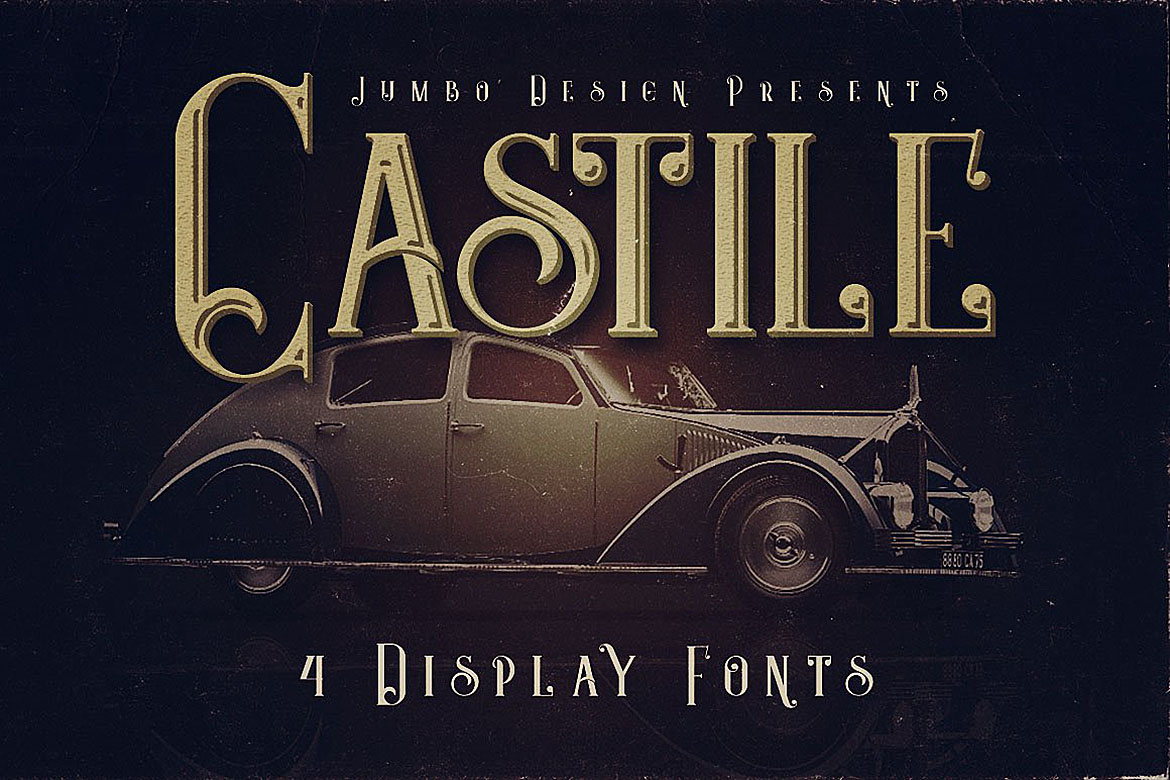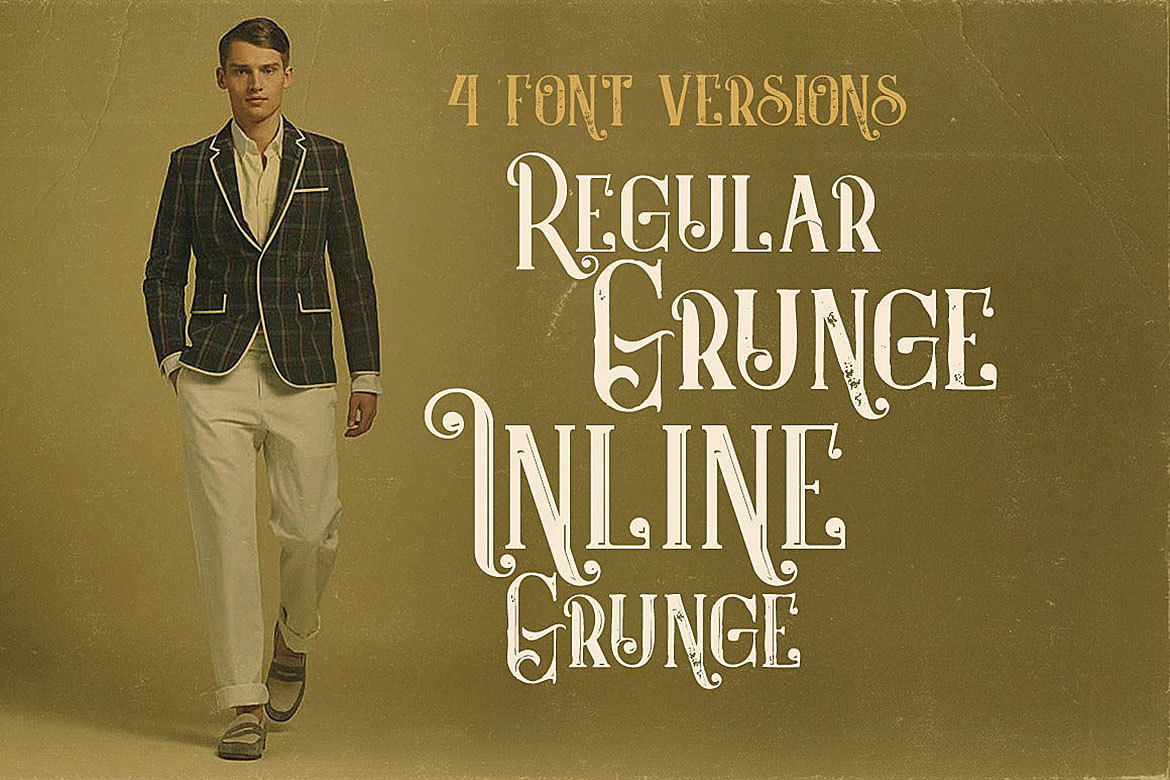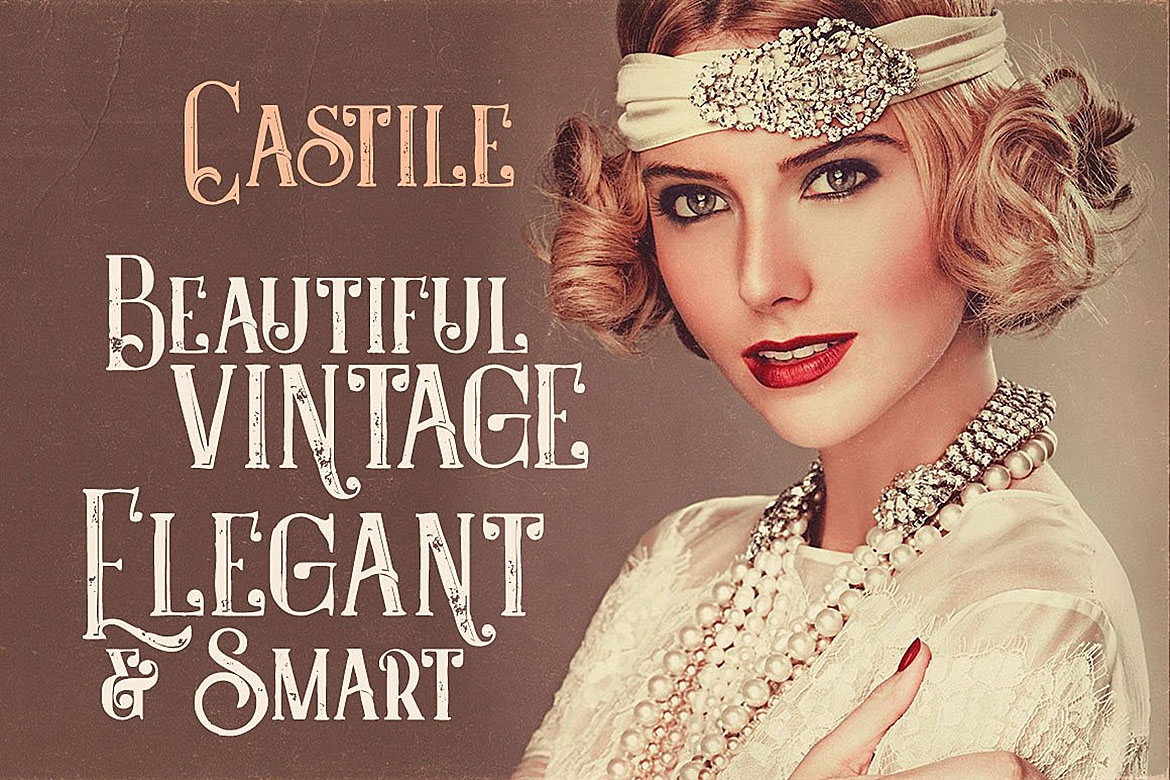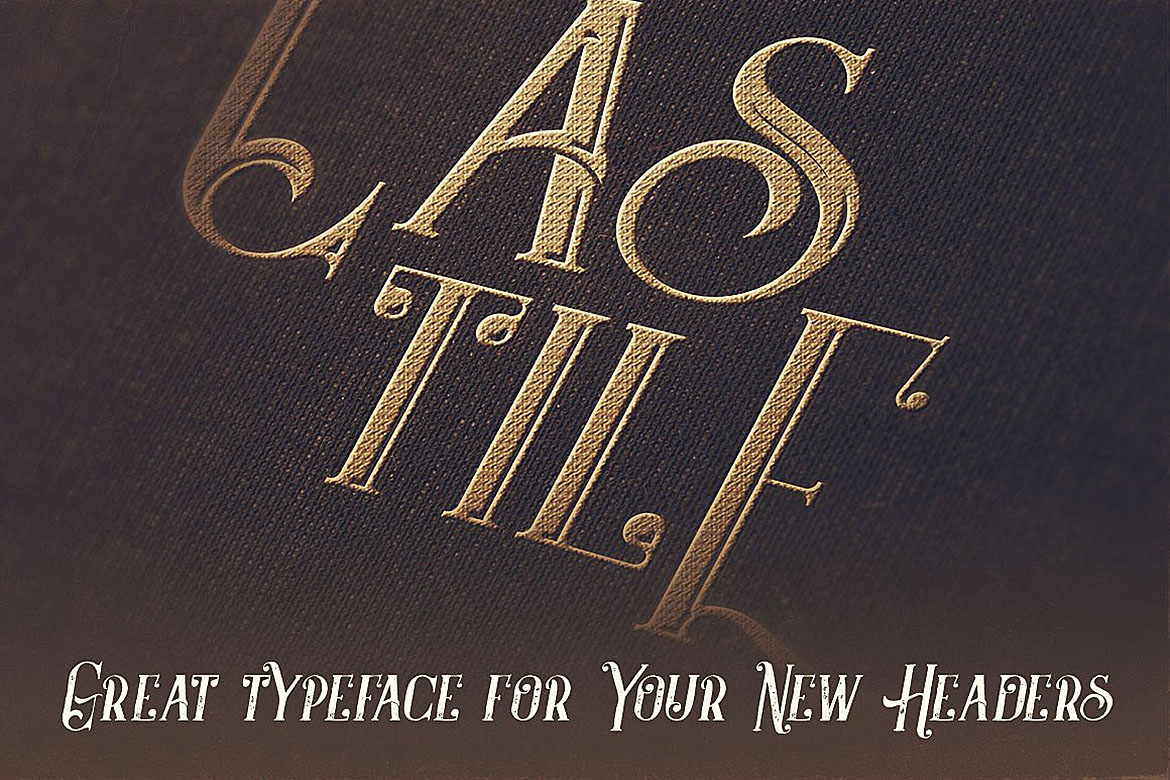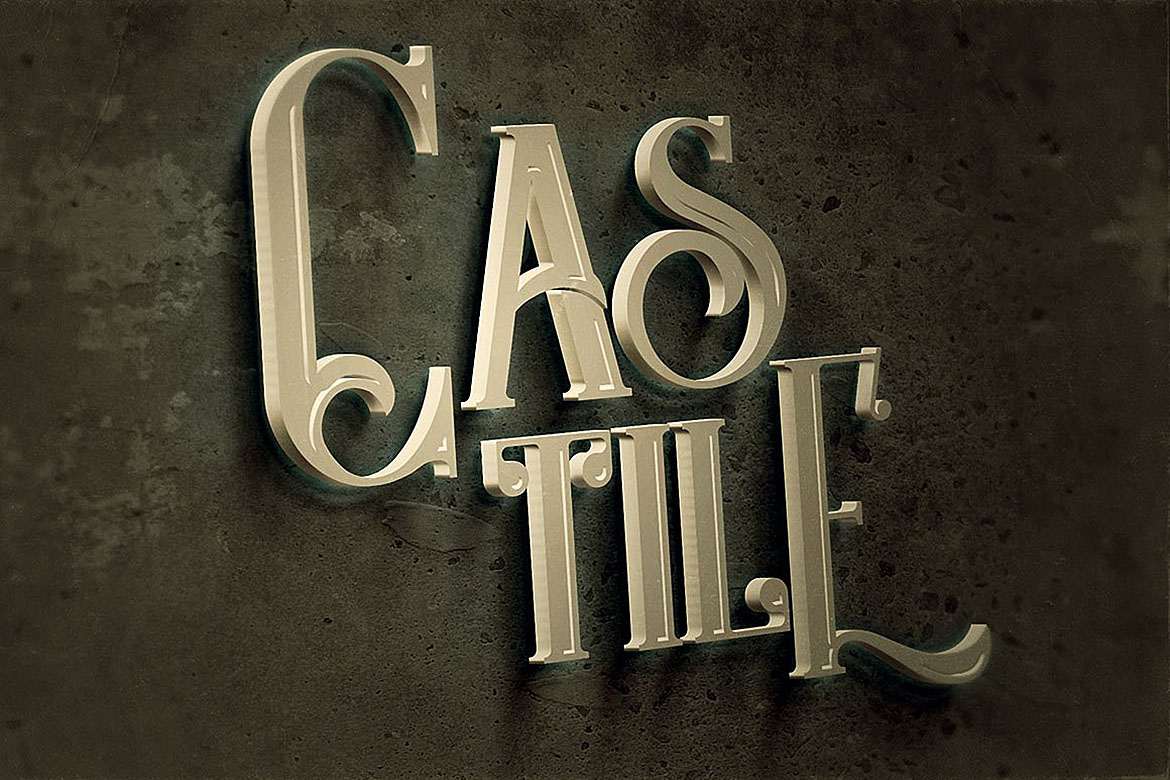
Castile is a gorgeous display font, perfectly crafted to give an art deco vibe to your designs. This display font is a stunner that comes in different styles, making it easy to customize and control your design.